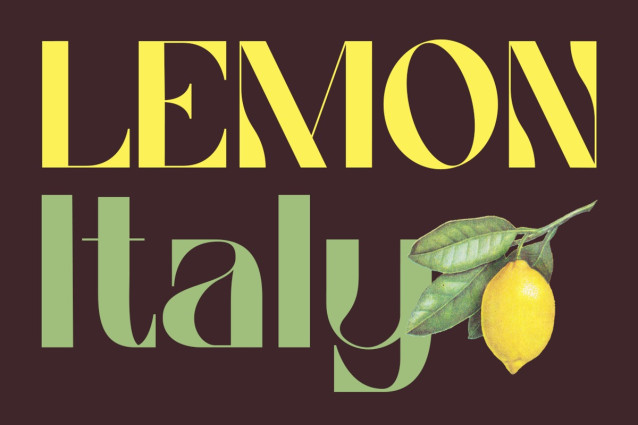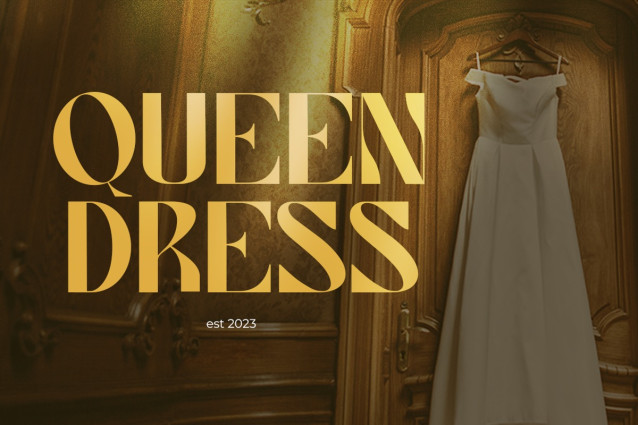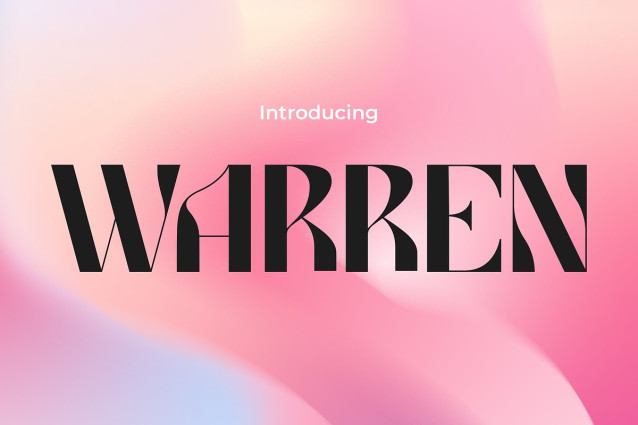
Warren Font
Warren Font – Embark on Timeless Elegance with Every Character of Warren, A Vintage Font Tempting with Unrivaled Elegance. From Gentle Curves to Captivating Fine Details, Each Letter Takes You on a Enchanting Journey to the Past, While Radiating a Relevant and Modern Charm. With Warren, Every Design Transforms into an Unforgettable Artwork, Inviting Buyers to Experience the Eternal Luxury Essence in Every Project They Create